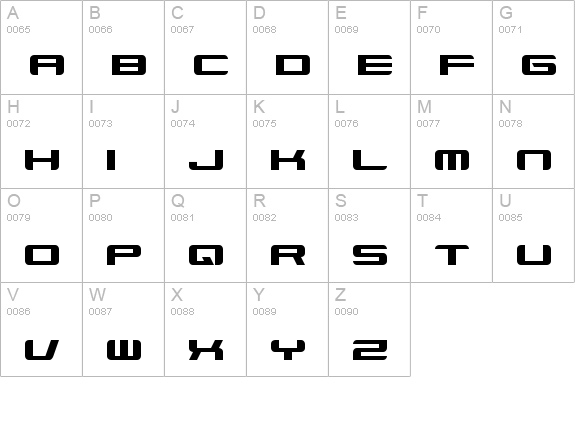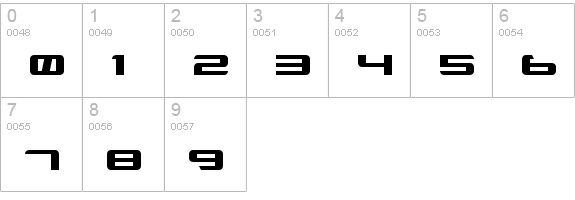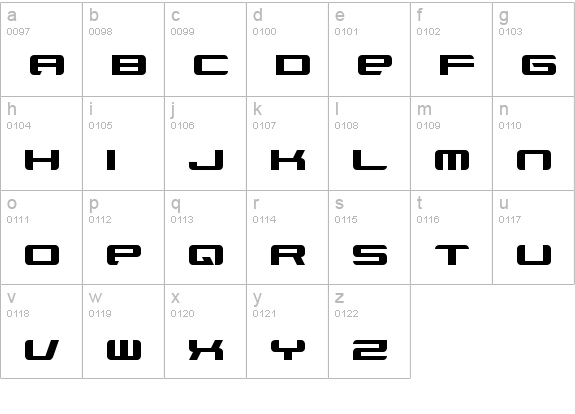
Xenotron Broadstroke Font Details
Xenotron Broadstroke font is a unique and eye-catching typeface that combines bold strokes with a futuristic flair. Its modern and edgy design makes it perfect for a wide range of projects, from branding to advertising to social media graphics. The thick, broad strokes create a strong visual impact, while the sleek lines add a touch of elegance. What sets Xenotron Broadstroke font apart is its versatility – it can be used for both display and body text, making it a great choice for designers looking to make a statement. Whether you're working on a poster, website, logo, or any other project that requires a bold and modern look, Xenotron Broadstroke font is sure to impress. The best part? Xenotron Broadstroke font is completely free to download at FontsMarket.com. So go ahead and add this striking typeface to your design arsenal today and take your projects to the next level.